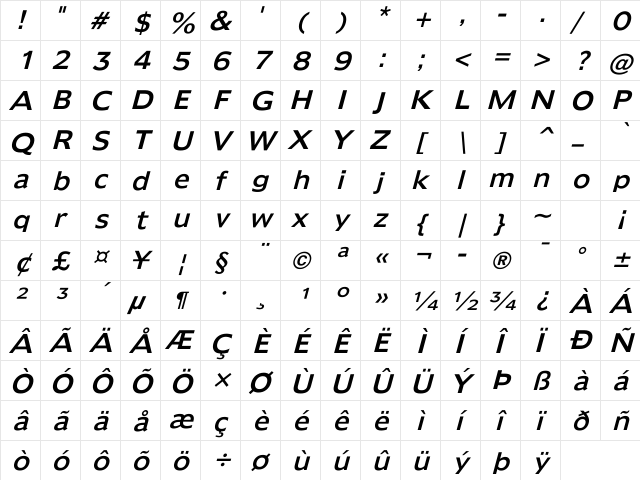
Humana Italic Italic
Design Context for Humana Italic Typeface
Humana Italic takes a measured approach to typography — its balanced proportions and neutral character make it a reliable workhorse for both digital and print work. Its italic angle brings a sense of urgency and motion to the letterforms.
Pro Tip: Try Humana Italic for annotation and caption copy alongside an upright companion — the contrast in angle creates a dynamic but ordered typographic system.